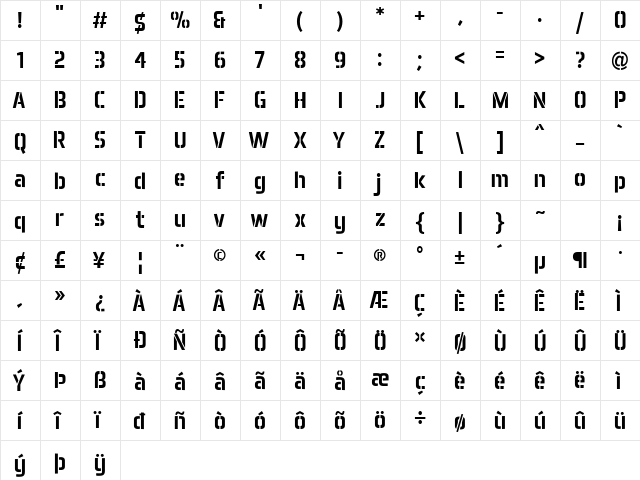
Aero Matics Stencil Regular
Design Context for Aero Matics Stencil Typeface
Aero Matics Stencil borrows the utilitarian aesthetic of stencil lettering, with its characteristic cutaways and no-frills construction lending an industrial edge.
Ideal for industrial branding, streetwear, military-adjacent aesthetics, and urban signage projects.
Pro Tip: Pair Aero Matics Stencil with raw, utilitarian design elements — exposed concrete textures, flat colour, and minimal ornamentation suit it well.